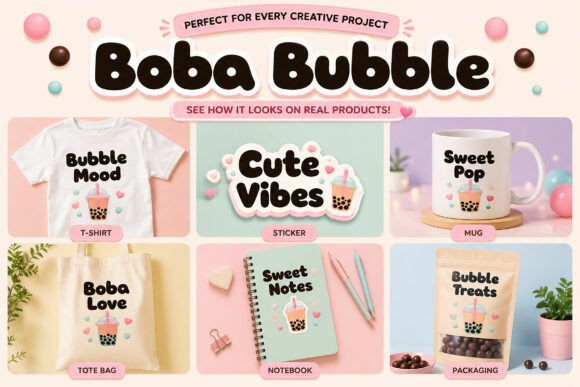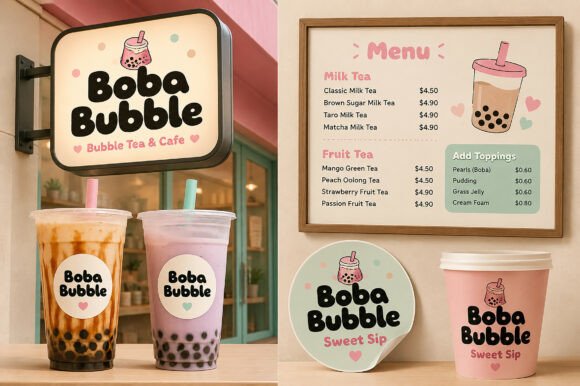
Designing with a Sweet Twist: Discover the Magic of the Boba Bubble Font
Have you ever found yourself scrolling through social media, only to stumble upon a post that instantly brightens up your day? For many of us, it’s the whimsical designs and playful branding that catch our attention and leave a lasting impression. As designers, we’re always on the lookout for that special something that adds a touch of magic to our projects. That’s where the Boba Bubble Font comes in – a delightful display font that’s as sweet as it is versatile.
With its chunky rounded letterforms and smooth curves, the Boba Bubble Font is the perfect addition to any project that needs a dash of fun and friendliness. Whether you’re creating a logo for a bubble tea shop or designing a colorful party invitation, this font is sure to bring a smile to your face and a touch of whimsy to your work. For designers, the Boba Bubble Font is a valuable asset that adds a unique and playful twist to any project, making it a must-have for any creative’s toolkit.
Boba Bubble Font Key Features
- Character Set: This font includes a comprehensive set of characters, including uppercase and lowercase letters, numbers, punctuation marks, and special characters, making it suitable for various applications.
- Unique Characteristics: The font’s distinctive bubble-like design and rounded edges give it a playful and whimsical feel, making it perfect for creative projects and designs that require a touch of personality.
- Script and Stylistic Sets: The font includes multiple script and stylistic sets, allowing users to customize the font’s appearance and create unique variations for different applications.
Boba Bubble Font Review
Overall, I think the Boba Bubble Font is a great addition to any designer’s toolkit. Here are some things that I like about it: ✨
- It’s super fun and playful, perfect for designs that need a bit of whimsy.
- The bubble design element is unique and visually appealing.
- It’s available in a range of weights, from light to bold, which gives designers a lot of flexibility.
- The font may not be suitable for professional or formal designs, as it’s a bit too casual.
- The bubble design element can be a bit distracting if used in large quantities.
- The font doesn’t come with a lot of language support, which may be a limitation for designers who need to work with multiple languages.
Overall, I think the Boba Bubble Font is a great choice for designers who want to add a bit of fun and personality to their designs. With a bit of caution and consideration, it can be a great addition to any design toolkit.
Tips for Getting the Most Out of Boba Bubble Font
1. Use the font for playful and creative designs.
2. Experiment with different font sizes and colors to achieve the desired effect.
3. Pair the font with other playful and creative elements, such as illustrations and graphics.
1. Social media graphics and posts.
2. Advertising and marketing materials.
3. Event invitations and promotional materials.